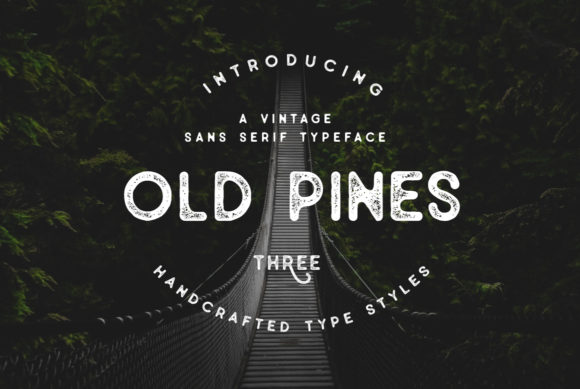
Pine typeface font free download. Pine forest come with two fonts styles rough and press. We have thousands of free fonts available for you. Fonts must be best. In this package include catchword and extra vector that can help you to create design.
On snot and fonts. 51895 downloads 31 yesterday free for personal use. Font font family grotesque otf roman sans serif suited to your project and it does not matter whether it is a printed poster or picture monitor. This typeface is suitable for any vintage related projects.
This typeface is original artwork of andrew weed. Introducing pine forest outdoor typeface. Submit a font tools. 4 matching requests on the forum.
Every font is free to download. Download donate to author. Download typeface pine free. This is a handcrafted outdoor typeface.
It looks elegant old and has a royal feel to it. Custom preview size. October 14 2005. Pine forest is a display sans serif typeface inspired from outdoor activity they have a verry handrawn and playfull character.